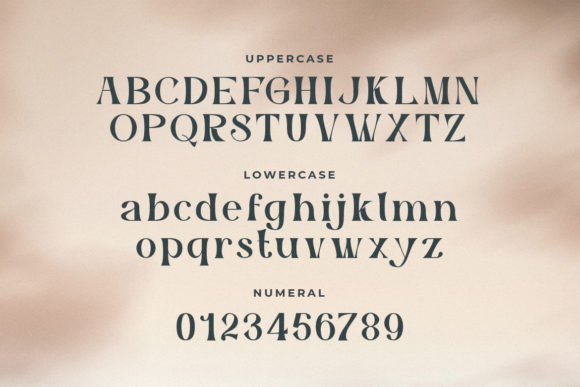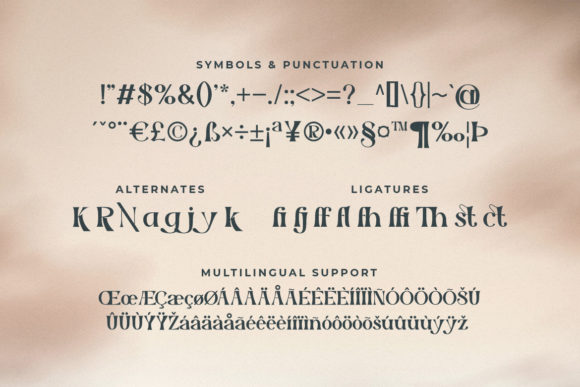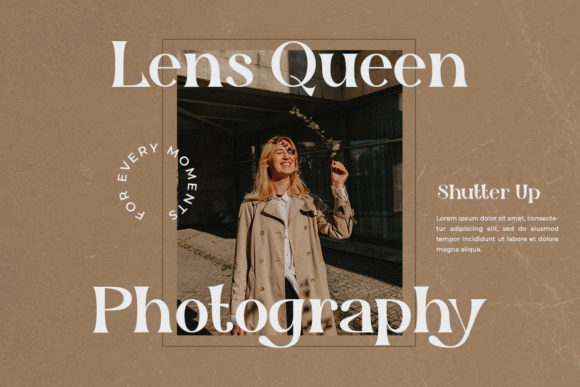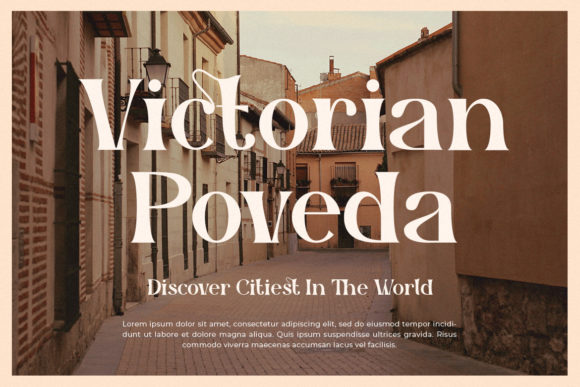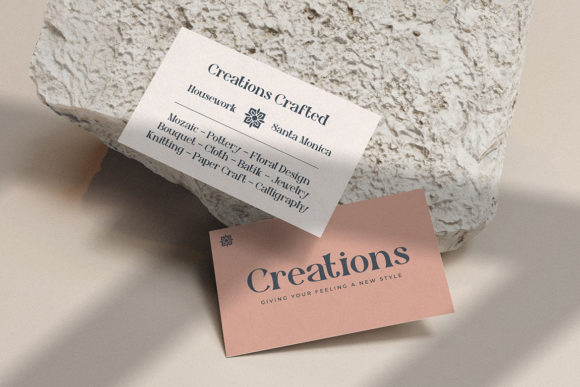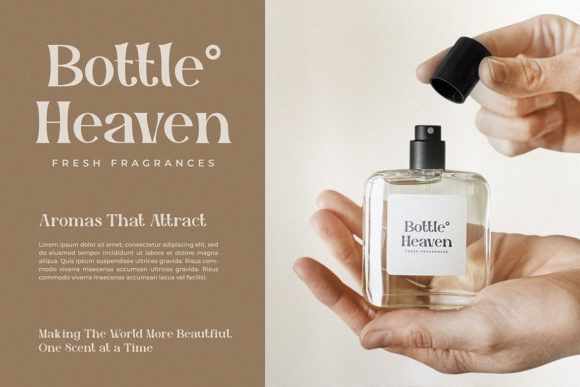
Introduction to Sandatory Font
Have you ever been working on a creative project, pouring your heart and soul into every detail, only to be held back by the perfect font? You know, the one that would elevate your design from good to great? For designers, finding that elusive font can be a challenge, but what if I told you that your search is over?
Enter the Sandatory Font, a stunning serif font that seamlessly blends traditional influences with modern aesthetics. With its elegant design, it’s no wonder that this font has become a go-to choice for designers looking to add a touch of sophistication to their work.
Whether you’re working on a free download or a high-quality design resource, the Sandatory Font is an invaluable asset that will take your creative projects to the next level. And with its transparent background option, you can easily incorporate it into your designs without any hassle. In this article, we’ll dive deeper into the world of the Sandatory Font and explore its many uses and benefits.
Key Features of Sandatory Font
- Designed with a modern and sleek aesthetic, making it perfect for contemporary design projects.
- Unique characteristics include a clean and minimalist design, making it an excellent choice for logos, branding, and other creative projects.
Honest Review: Sandatory Font
- High-quality typography: The Sandatory Font boasts a sleek and modern design that’s perfect for creative projects.
- Transparent background: This feature makes it easy to customize the font to fit any design need.
- Perfect for headings: The font’s bold and eye-catching style makes it ideal for headings and titles.
- Great for digital designs: The font’s modern design makes it a great fit for digital designs, including websites and social media graphics.
- Limited character set: The Sandatory Font may not have as many characters as some other fonts, which could be a limitation for some designers.
- Not ideal for body text: While the font is great for headings, it may not be the best choice for body text due to its bold style.
- Dependent on design context: The font’s effectiveness may depend on the design context and the overall aesthetic of the project.
Overall, I’m impressed with the Sandatory Font and would recommend it for designers looking for a high-quality, modern font for their creative projects.
Tips for Getting the Most Out of Sandatory Font
For the best results, use Sandatory Font with a transparent background to create a clean and modern look. You can also experiment with different font sizes and styles to add visual interest to your design.
Sandatory Font is commonly used for creative projects such as logos, brochures, and social media graphics. It’s also a great choice for designing presentations, flyers, and other marketing materials.